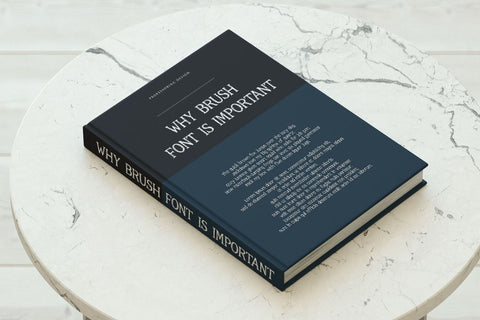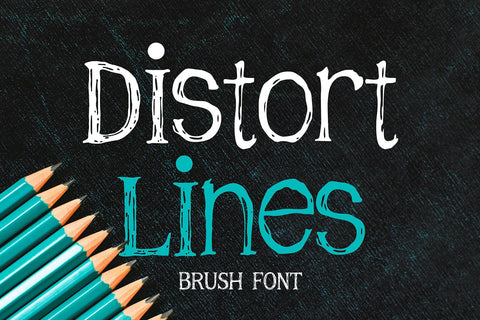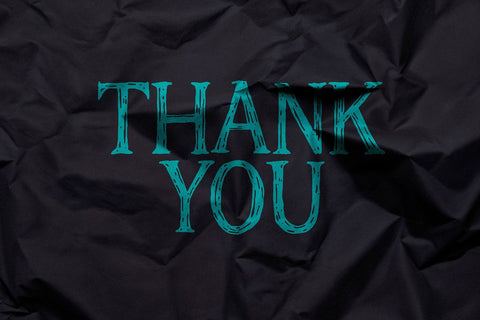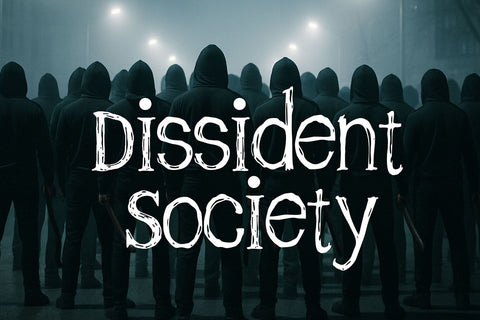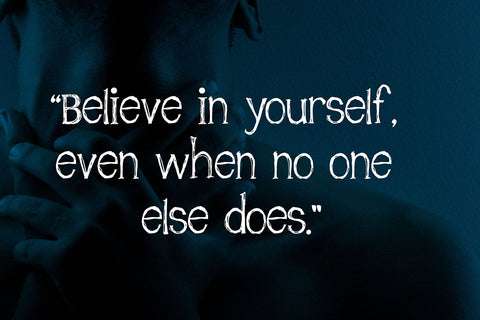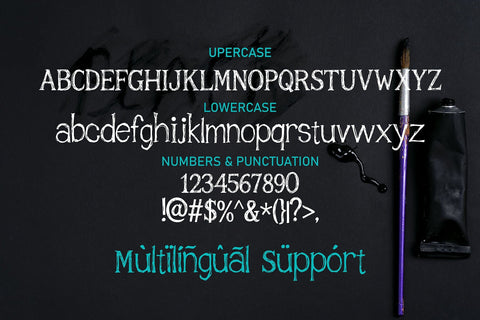
Distort Lines – Textured Brush Font
Distort Lines is a bold and expressive brush font crafted with handmade strokes and unique distorted details. Its rough yet artistic appearance makes it a perfect fit for branding, posters, packaging, editorial titles, bold quotes, and other creative design projects. The characters are intentionally irregular, giving a sense of organic flow while remaining highly legible. Distort Lines includes uppercase and lowercase characters, numbers, punctuation, and is available in OTF and TTF formats to ensure compatibility across different design platforms.